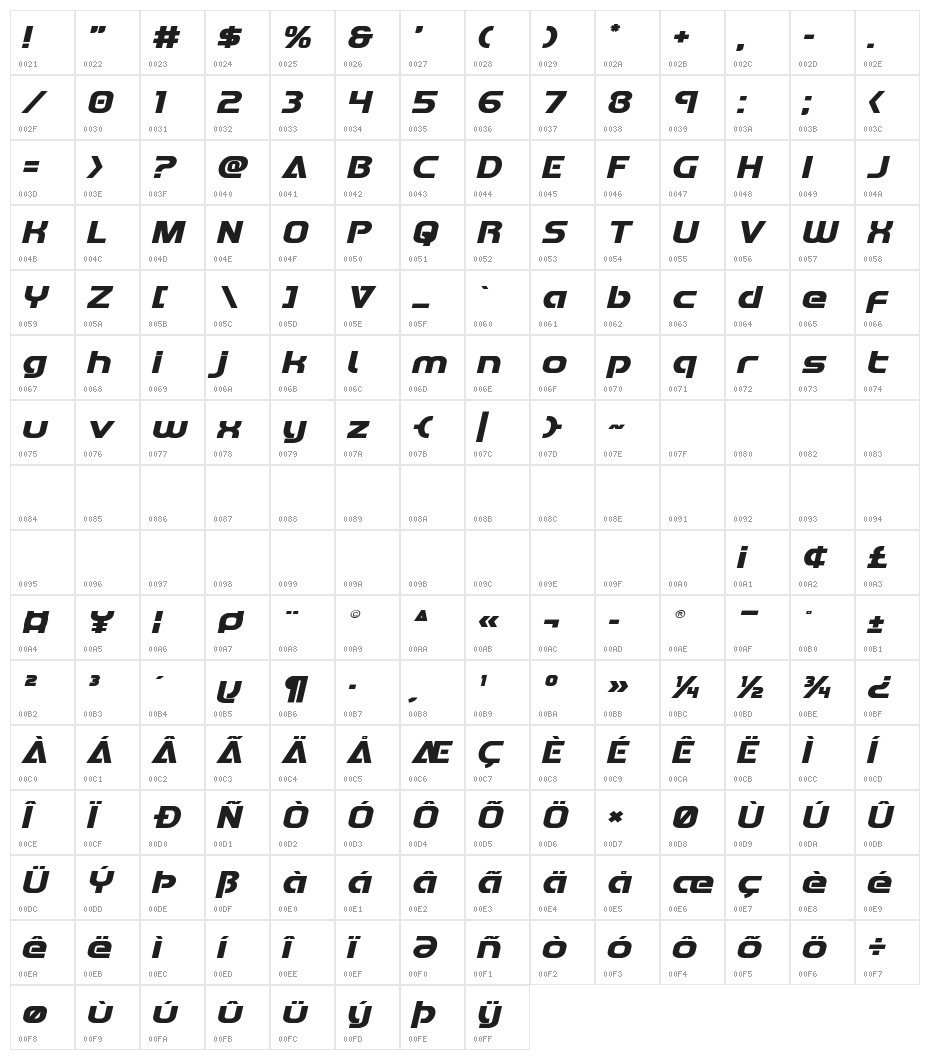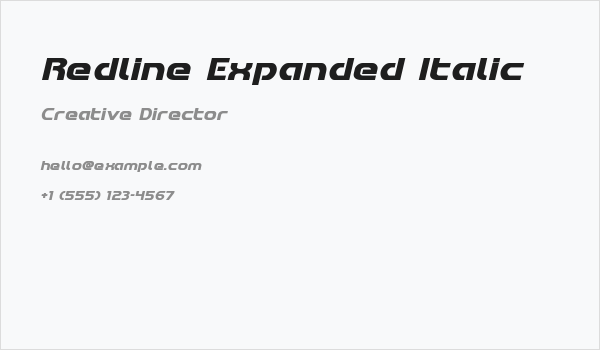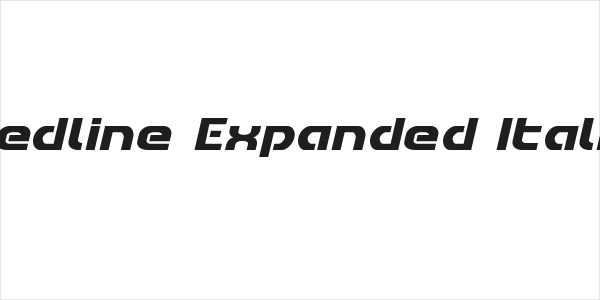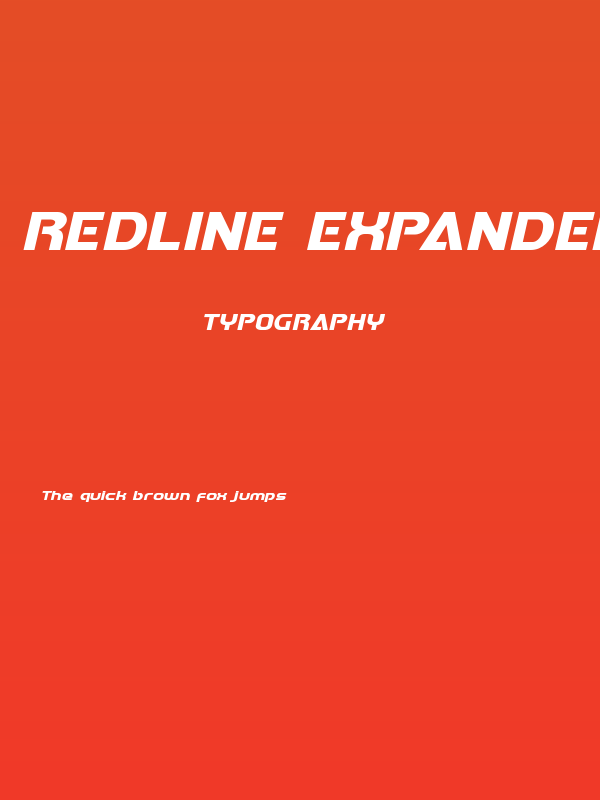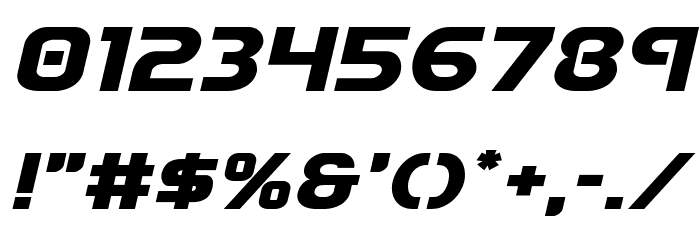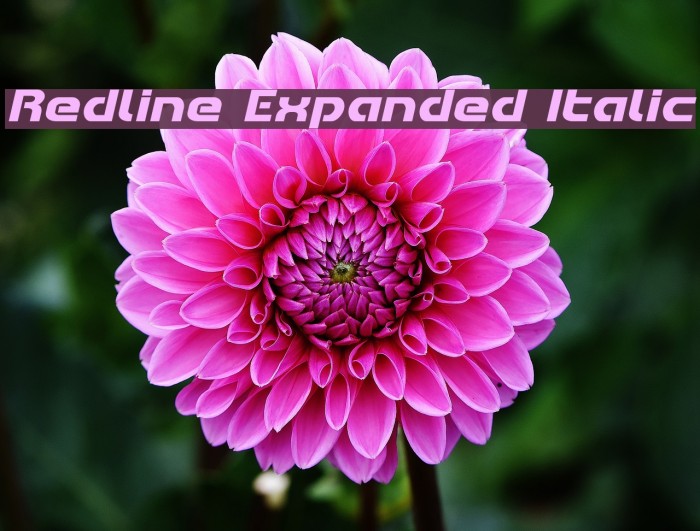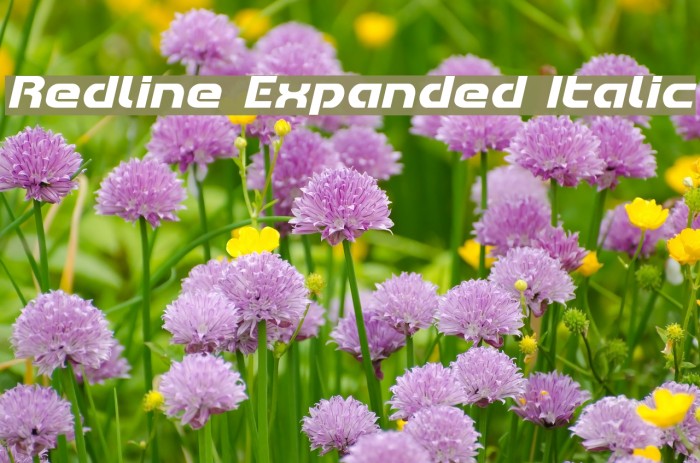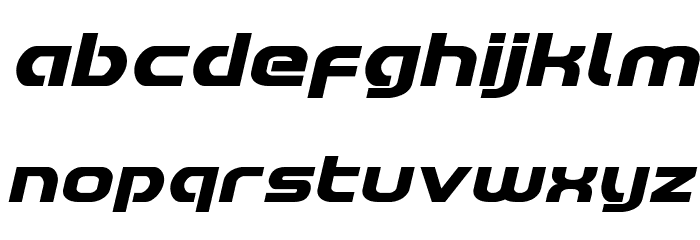
Redline Expanded Italic Font
Redline Expanded Italic Description
This font features an expanded and italicized style, characterized by its bold and dynamic appearance. The letters are slanted to the right, giving a sense of motion and speed. The strokes are thick and consistent, providing a strong visual impact. The characters are well-spaced, ensuring readability while maintaining a cohesive look. The font includes a full set of uppercase and lowercase letters, numbers, and a variety of special characters, making it versatile for different design needs. Its modern aesthetic is suitable for projects that require a contemporary and energetic feel.
| Proposed Projects | Ideal for sports branding, automotive designs, dynamic posters, and modern advertising. |